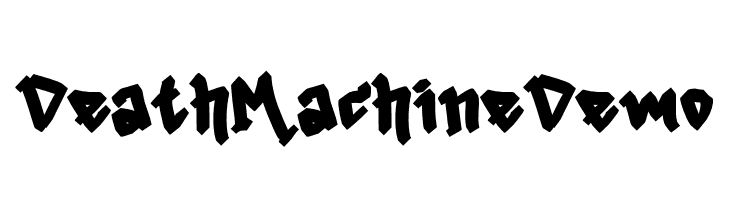
Bold, angular gothic-style font.
A bold, geometric font with a modern and decorative style.
A bold, futuristic font with a dynamic slant and rounded, cutout characters.
A bold, dynamic script font with a modern, brush-like style.
A playful, hand-drawn font with uneven strokes and a whimsical style.
A modern, geometric font with angular lines and a sleek, dynamic style.
A decorative font with characters resembling mechanical creatures.
A playful, cat-themed decorative font with paw print embellishments.
A bold, handwritten font with a dynamic and artistic style.